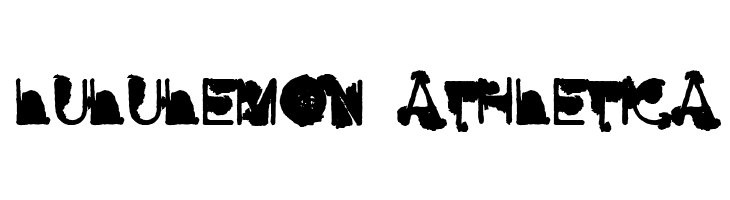
Tropper of the Beast Font
- Font: Tropper of the Beast
( Fonts by Bumbayo Font Fabrik - bumbayo.blogspot.com )
A playful, bold font with rounded, organic shapes and a hand-drawn feel.